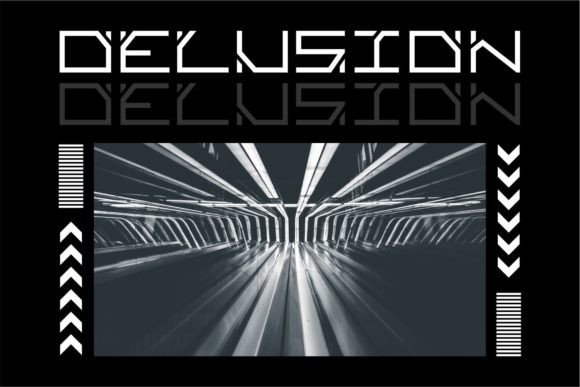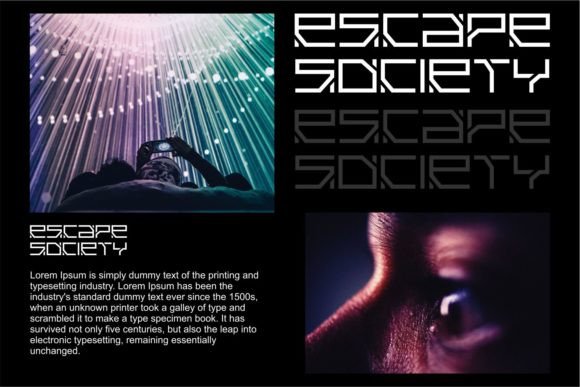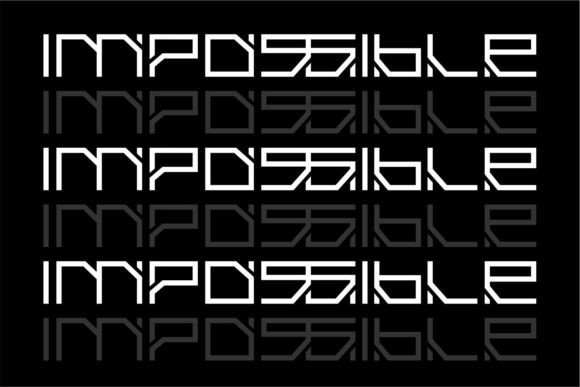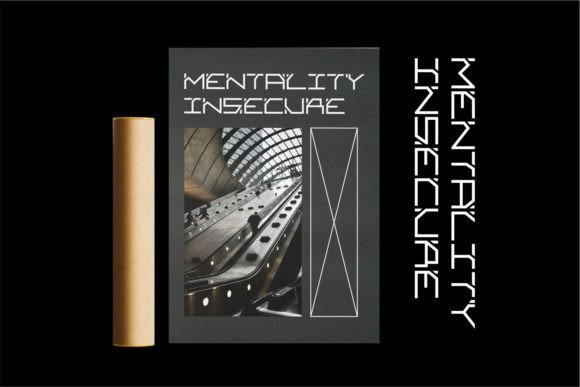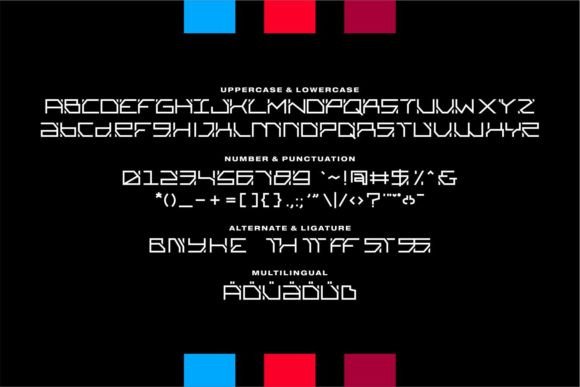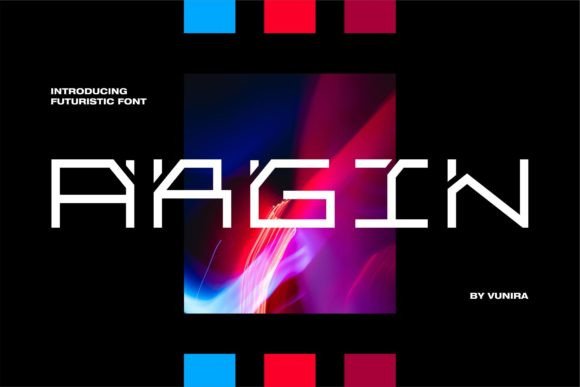
Introducing Argin Font: The Ultimate Choice for Modern Designs
Are you looking for a font that screams innovation and cutting-edge technology? Look no further than Argin Font, a sleek and modern display font that is perfect for creating bold and impactful designs. With its bold lines and futuristic details, Argin is the ideal choice for designers and crafters who want to step into the future with their designs.
What Makes Argin Font Stand Out?
Argin Font is carefully crafted to create a bold and impactful effect, making it perfect for designs that require a sense of innovation and cutting-edge technology. Its bold lines and futuristic details give it a unique and modern look that is sure to grab attention. Whether you’re creating a tech company logo, a sci-fi movie title, or any other design that requires a modern and sleek look, Argin Font is the perfect choice.
Key Features of Argin Font
- PUA Encoded: Argin Font is PUA encoded, which means that you can access all delightful glyphs and swashes effortlessly. This makes it easy to use and customize, even for designers who are new to font editing.
- Bold and Impactful: Argin Font is designed to create a bold and impactful effect, making it perfect for designs that require a sense of innovation and cutting-edge technology.
- Futuristic Details: Each letter in Argin Font is carefully crafted with futuristic details that give it a unique and modern look.
- Modern and Sleek: Argin Font has a modern and sleek look that is perfect for designs that require a sense of innovation and cutting-edge technology.
Use Cases for Argin Font
Argin Font is perfect for a wide range of design projects, including:
- Tech Company Logos: Argin Font is perfect for creating tech company logos that require a modern and sleek look.
- Sci-Fi Movie Titles: Argin Font is perfect for creating sci-fi movie titles that require a bold and impactful effect.
- Product Packaging: Argin Font is perfect for product packaging that requires a modern and sleek look.
- Advertising: Argin Font is perfect for advertising designs that require a bold and impactful effect.
Tips for Using Argin Font
Here are some tips for using Argin Font:
- Use it for Headlines: Argin Font is perfect for headlines and titles that require a bold and impactful effect.
- Experiment with Colors: Argin Font looks great in a variety of colors, so don’t be afraid to experiment and find the perfect color for your design.
- Pair it with Other Fonts: Argin Font can be paired with other fonts to create a unique and interesting look.
In conclusion, Argin Font is a sleek and modern display font that is perfect for creating bold and impactful designs. With its bold lines and futuristic details, Argin is the ideal choice for designers and crafters who want to step into the future with their designs. Its PUA encoded feature makes it easy to use and customize, and its versatility makes it perfect for a wide range of design projects.